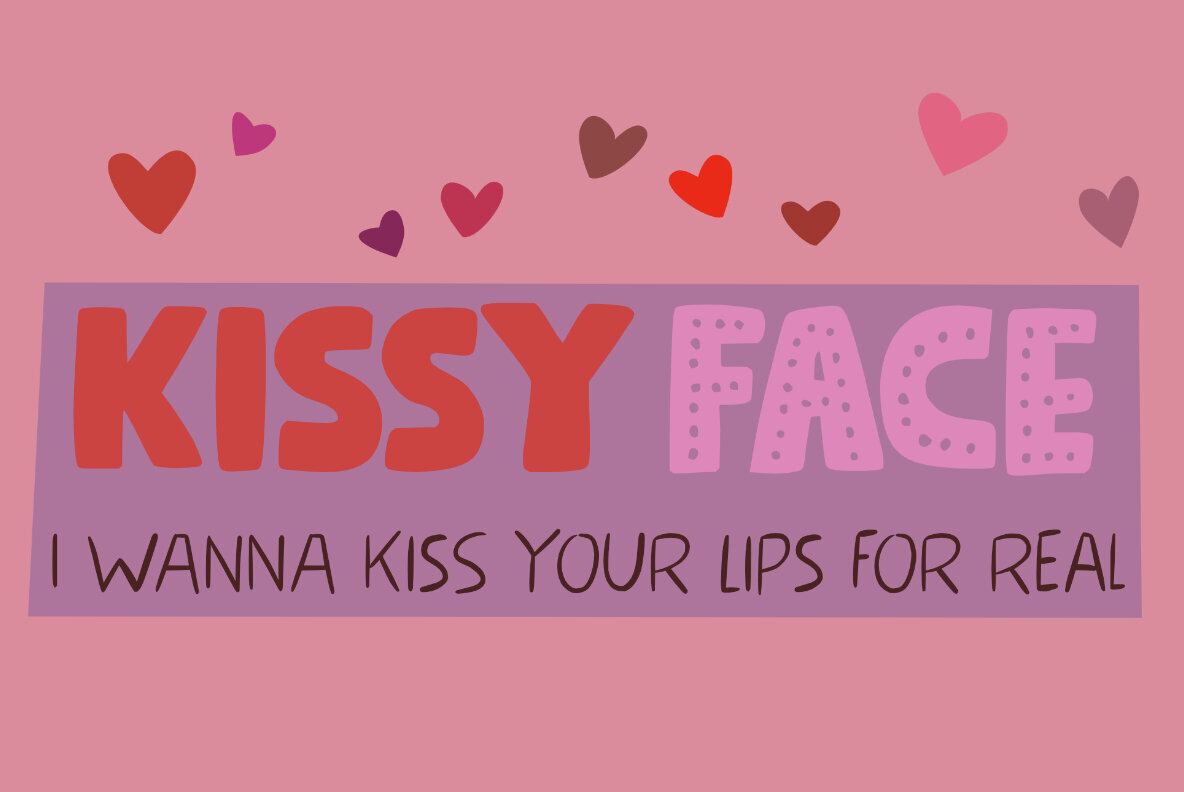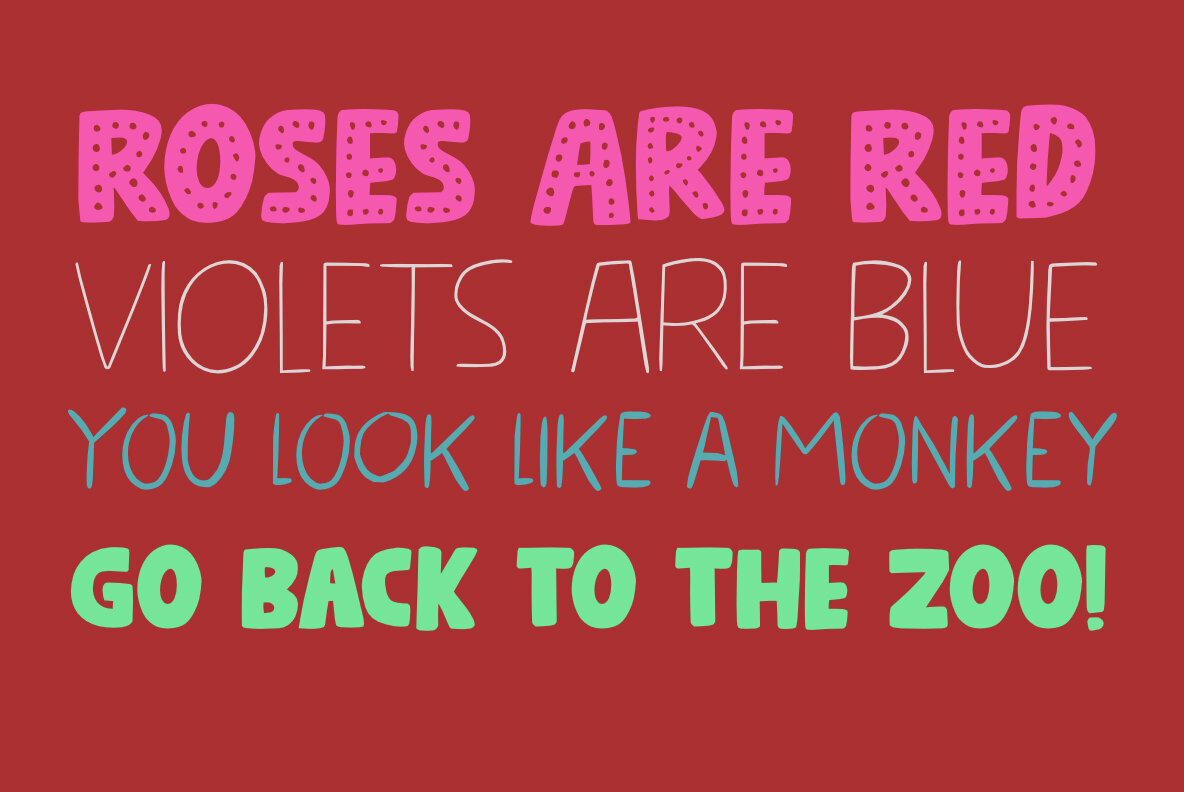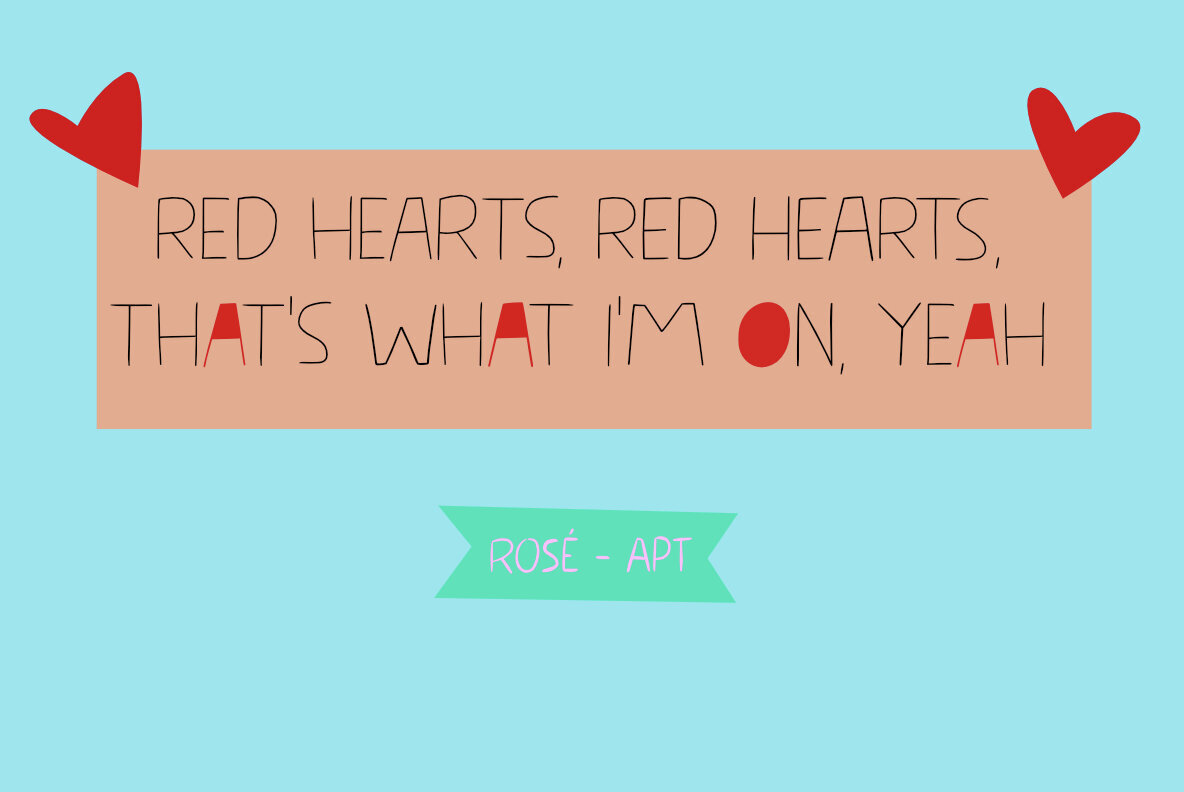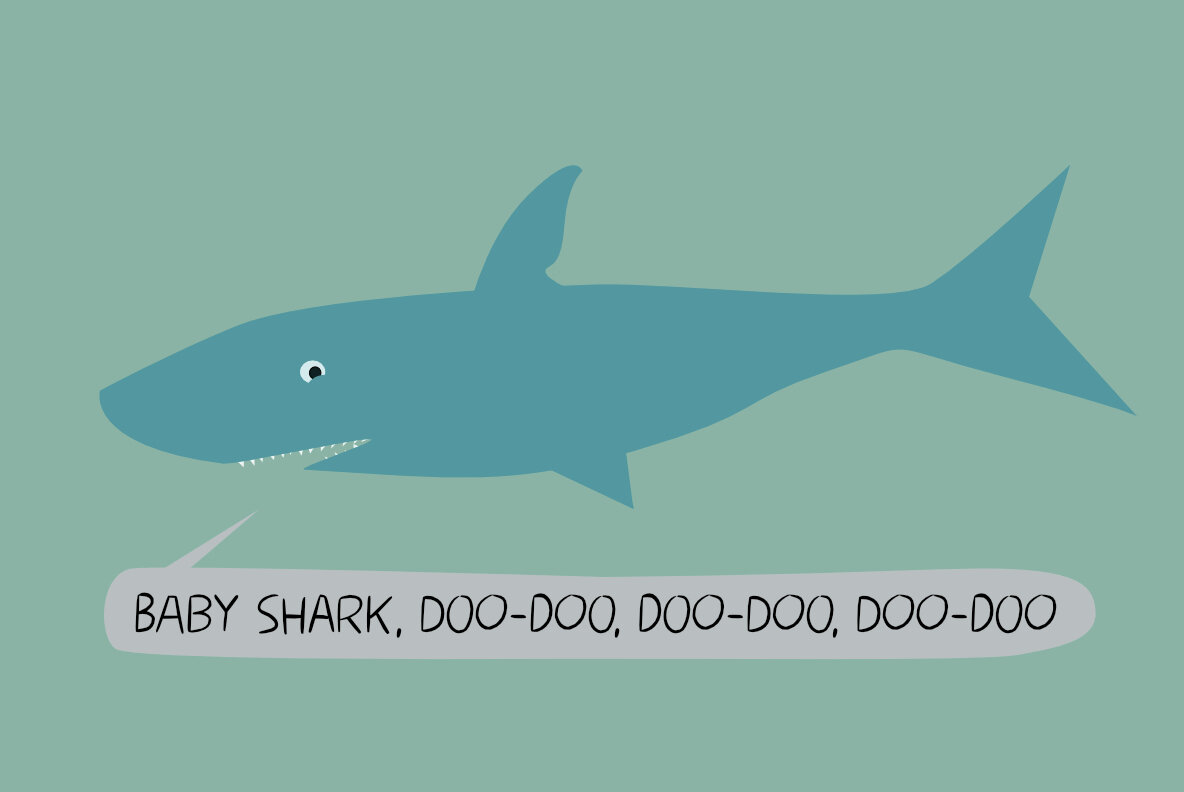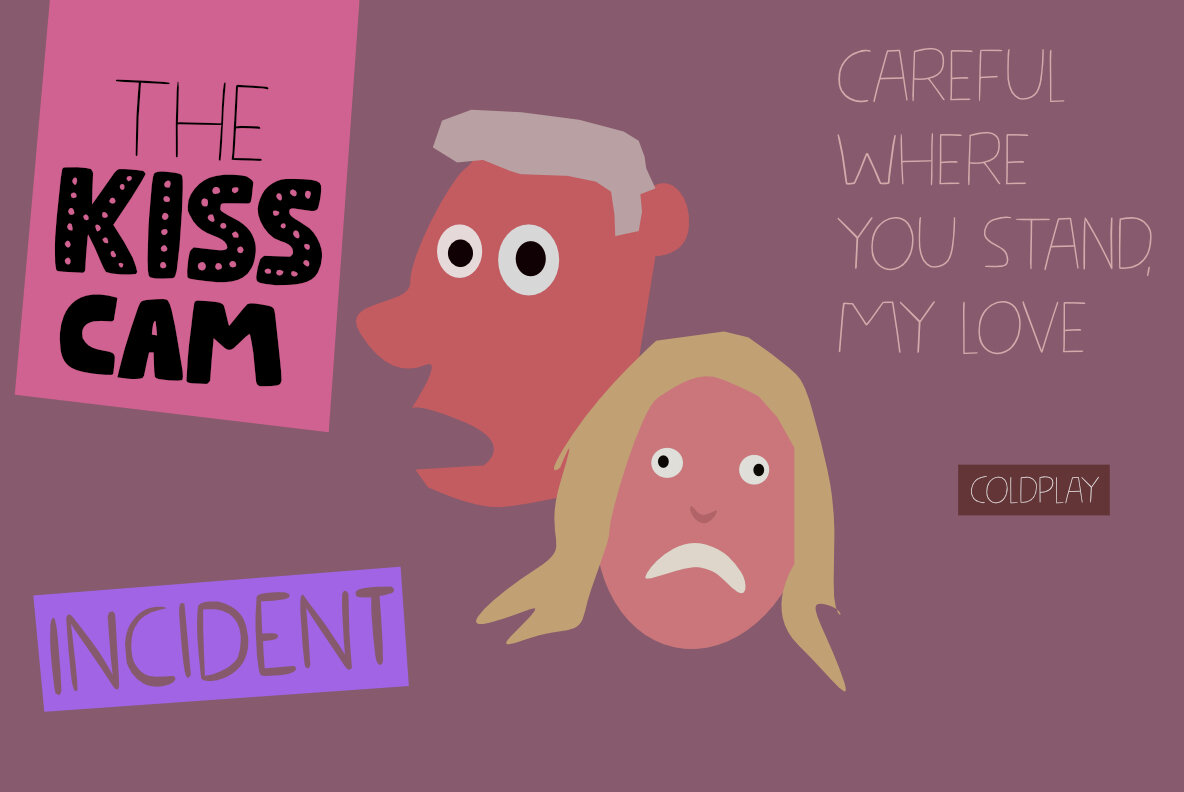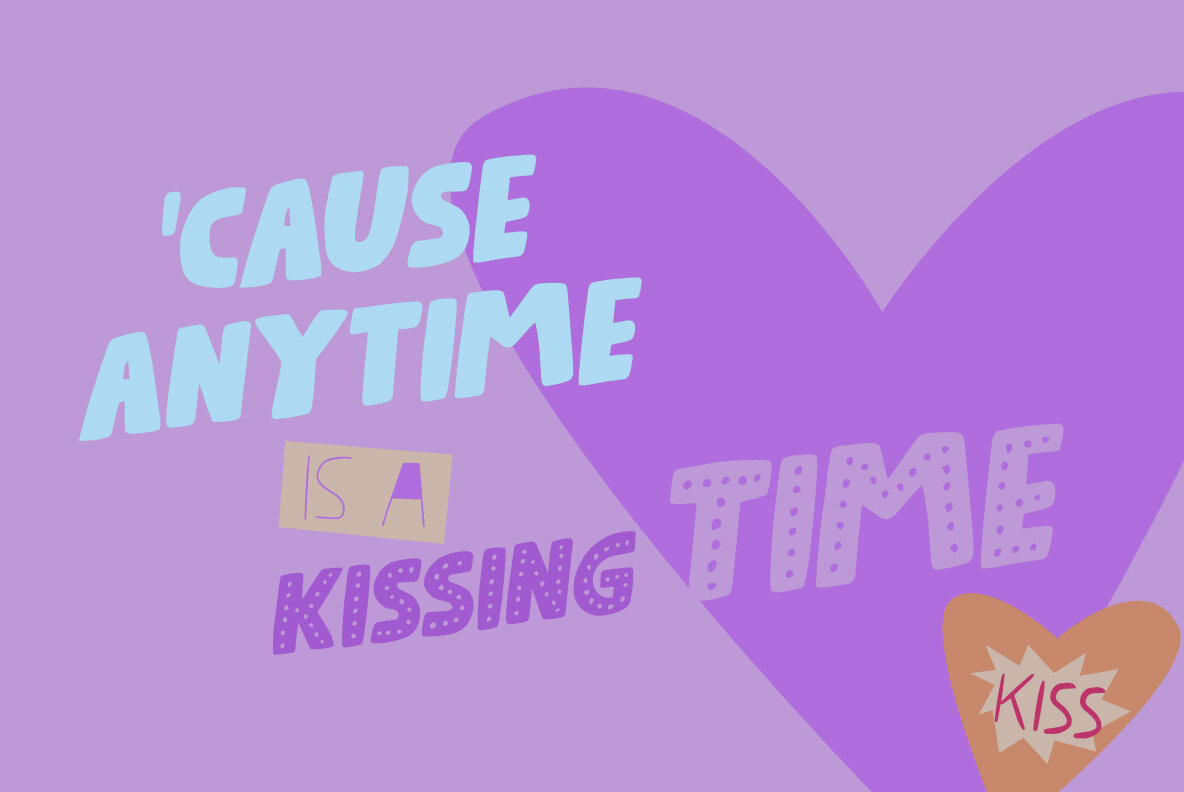
Kissy Face Font
Kissy Face is a handcrafted font family designed for creative projects requiring a touch of playfulness. Inspired by contemporary music and family life, this typeface captures a spirited, approachable style that stands out in any design setting.Kissy Face Font Family
With five distinct fonts included in both regular and italic styles, Kissy Face offers solid versatility for headlines, posters, packaging, or branding. The fonts are designed to work seamlessly together, making it easy to create layered, expressive layouts. Each character features subtle hand-drawn qualities, adding warmth and individuality to text compositions.Font Features